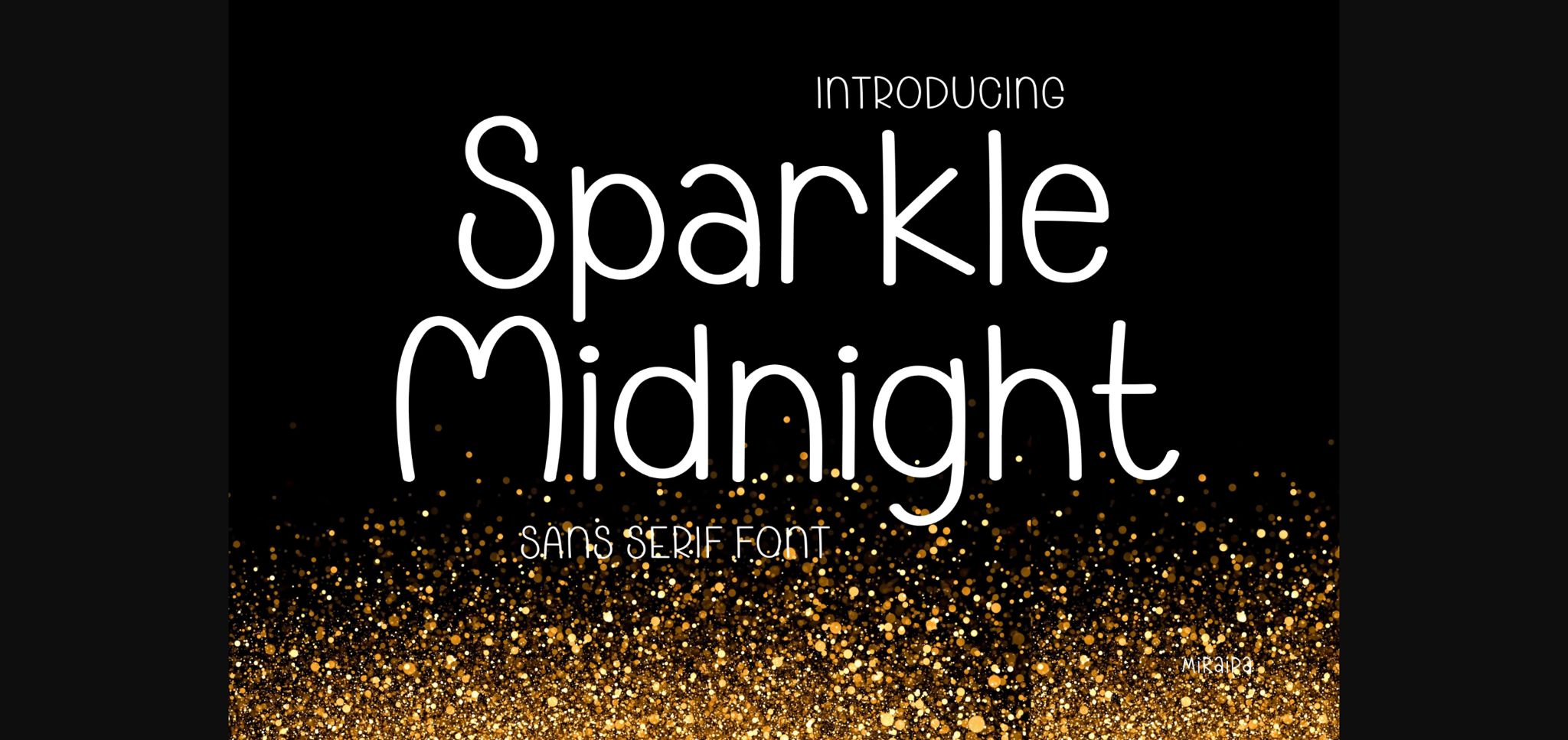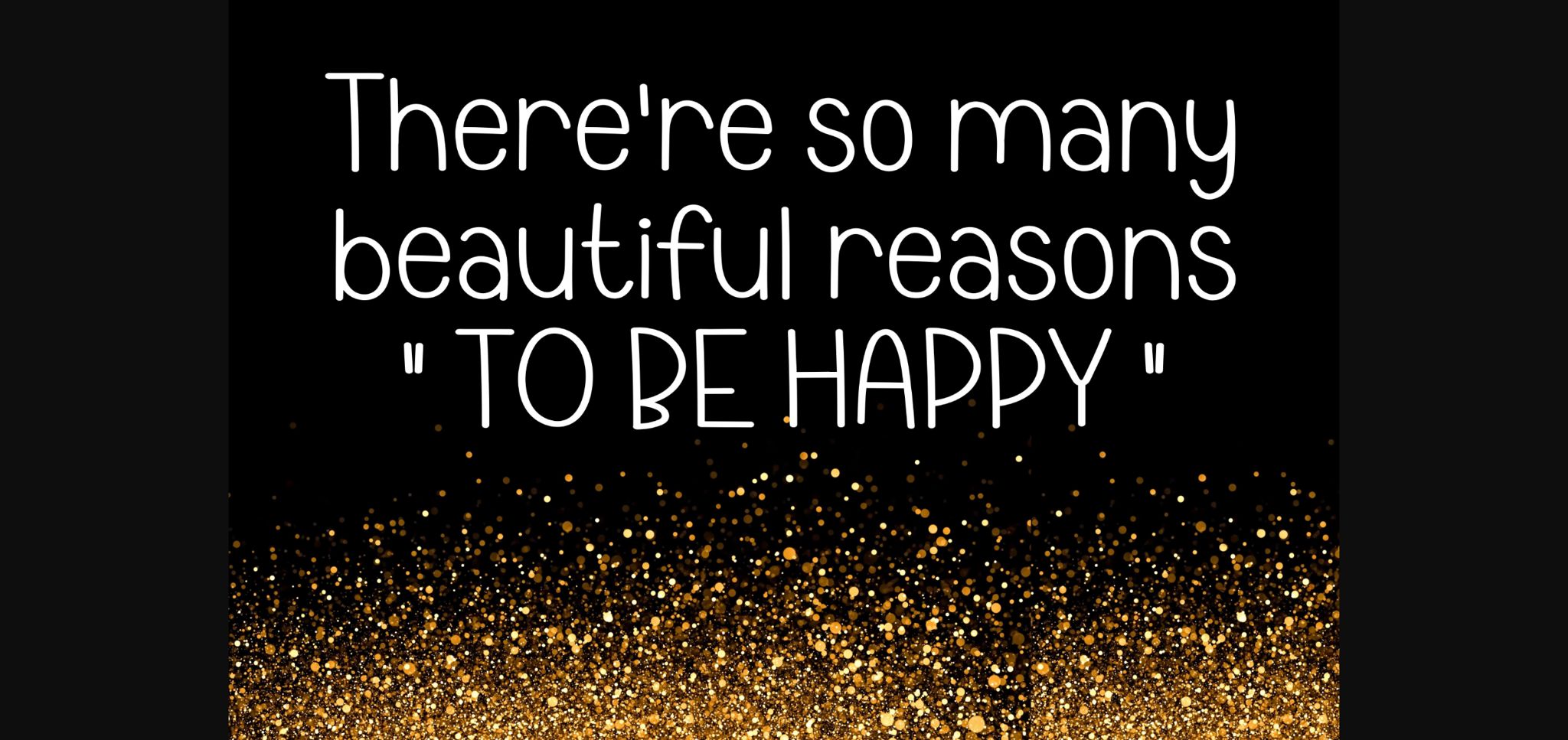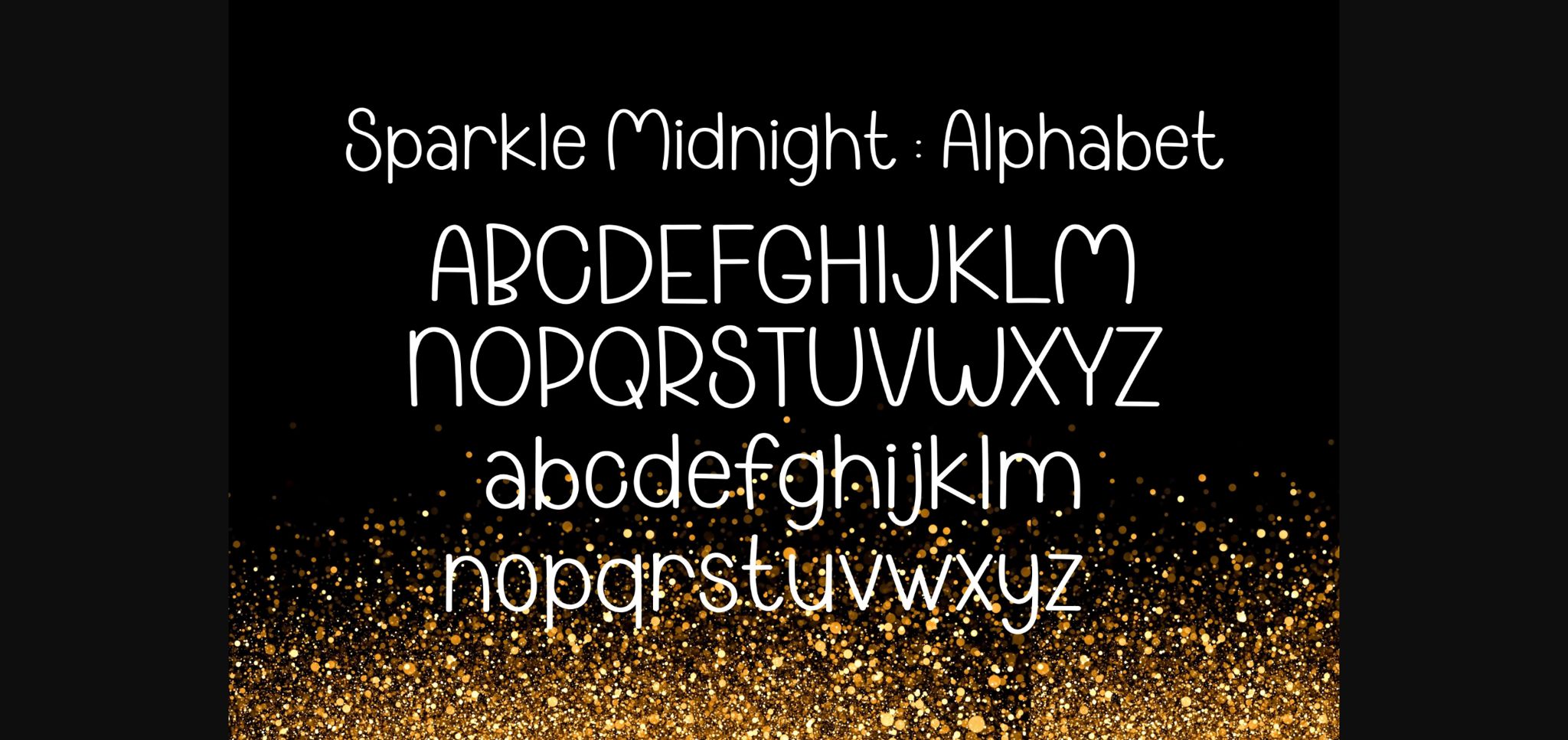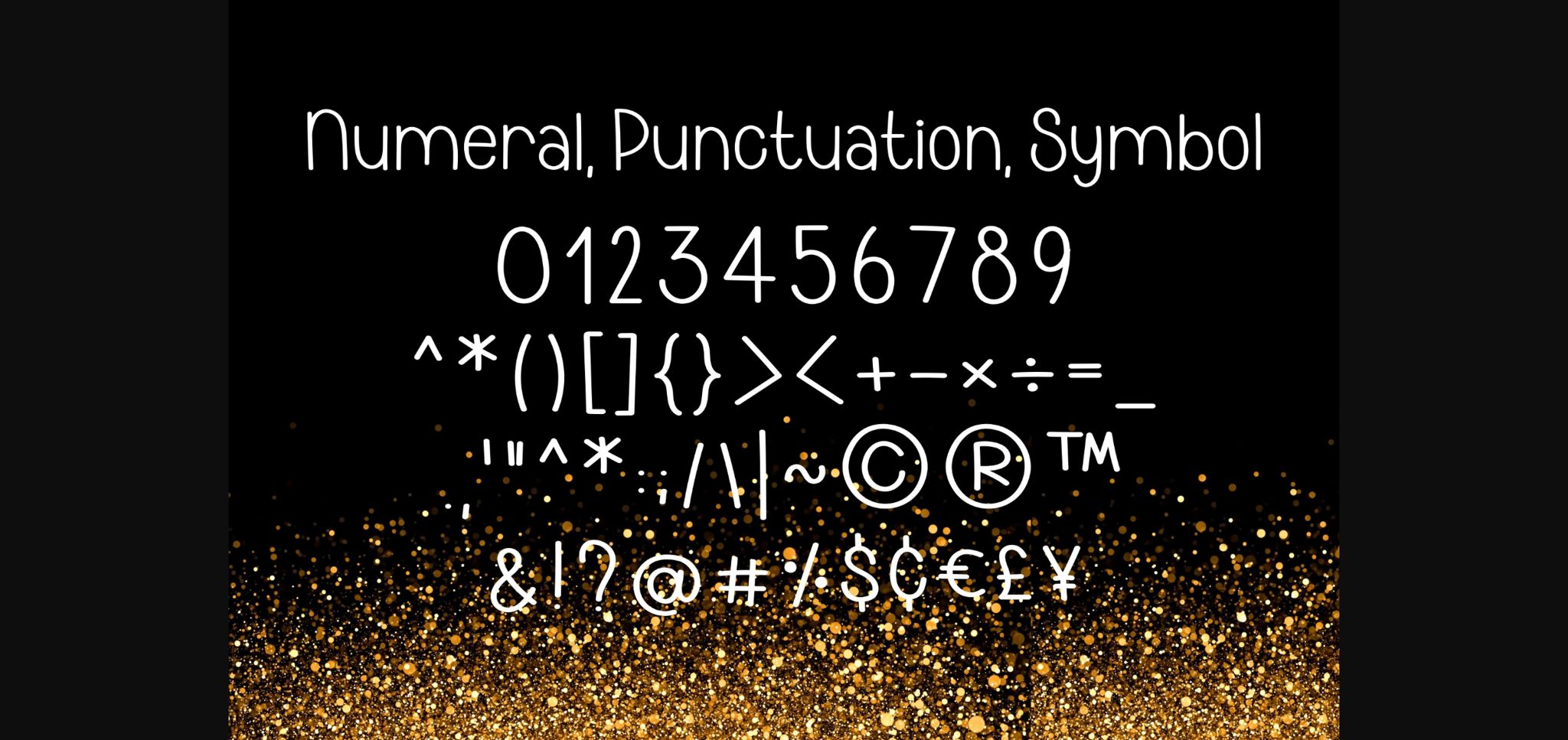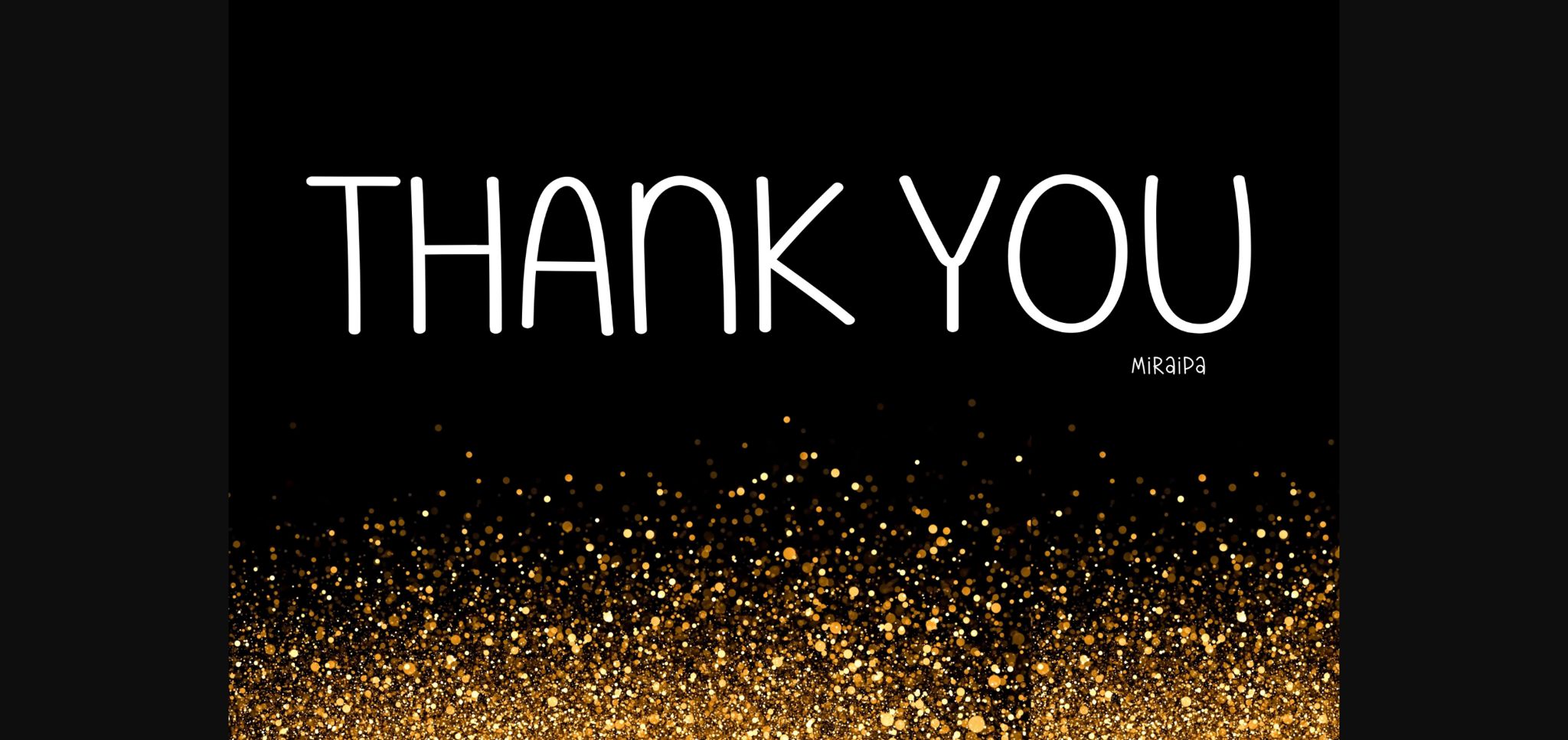
HomeSans Serif FontsSparkle Midnight Font Sans Serif Fonts Sparkle Midnight Font FacebookXPinterestWhatsApp 1 of 7 ... Sparkle Midnight Font Poster 2... Sparkle Midnight Font Poster 3... Sparkle Midnight Font Poster 4... Sparkle Midnight Font Poster 5... Sparkle Midnight Font Poster 6... Sparkle Midnight Font Poster 7... About Sparkle Midnight Font Sparkle Midnight is a cute and playful handwritten sans serif font. Fall in love with its incredibly distinct and timeless style and use it to create spectacular designs! DOWNLOAD NOW People also explored Hide Away Duo Font Grilled Chicken Paw Font California Font Mandala Design Monogram Cadacia Floral Font Sweety Mom Font Akvocar Font Rayden Stone Font 254 0 TagsSparkle Midnight Font Previous articleMoonclaw Starplume FontNext articleRoboga Font LEAVE A REPLY Cancel reply Comment: Please enter your comment! Name:* Please enter your name here Email:* You have entered an incorrect email address! Please enter your email address here Website: Save my name, email, and website in this browser for the next time I comment. Personal Use Free Adeline Personal Use Free Read more about this font Silver Bullet Personal Use Free Read more about this font Mueband Personal Use Free Read more about this font Rise of Kingdom Personal Use Free Read more about this font BLOG Free Fonts Risk: Why Free Fonts Can Be Dangerous for Designers Free Fonts Risk: Why Free Fonts Can Be Dangerous for Designers Using free fonts is a common practice in web and graphic design. However, the... To increase your work productivity, choose the most readable fonts. The 10 Best Handwriting Fonts to Add Personality to Your Designs Using Fonts in Digital Marketing: Tips to Strengthen Your Brand Identity